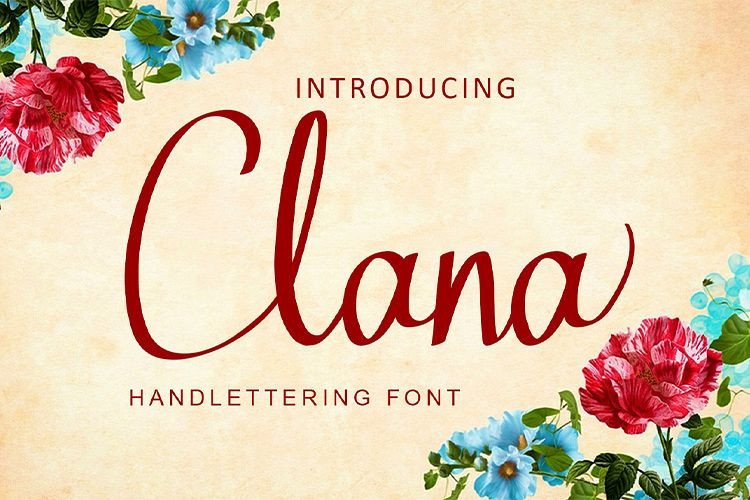
Clana Handwritten Font
Clana is hand script fonts with natural curves. Suitable for wedding events, business cards, logos, covers, comics, invitations, web sites and your other projects.